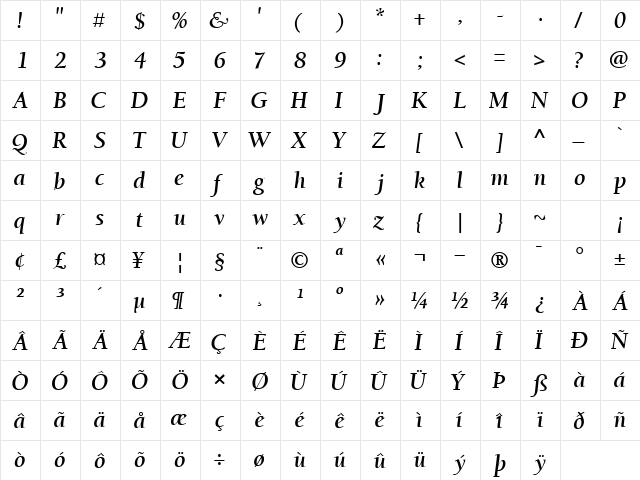
BerkeleyRetrospectiveSSK Bold Italic Font Preview
Design Context for BerkeleyRetrospectiveSSK Typeface
BerkeleyRetrospectiveSSK wears its vintage influences proudly, with letterforms that recall mid-century signage, classic packaging, and nostalgia-driven design. The slanted form adds forward momentum and visual energy. Its bold stroke weight gives it real presence on the page.
Font Pairing: Combine BerkeleyRetrospectiveSSK with a simple slab or neutral sans — period-accurate companions reinforce the vintage feel without competing for attention.
Pro Tip: Use BerkeleyRetrospectiveSSK for headlines and pull quotes rather than body copy — its personality is best appreciated in short, focused bursts.